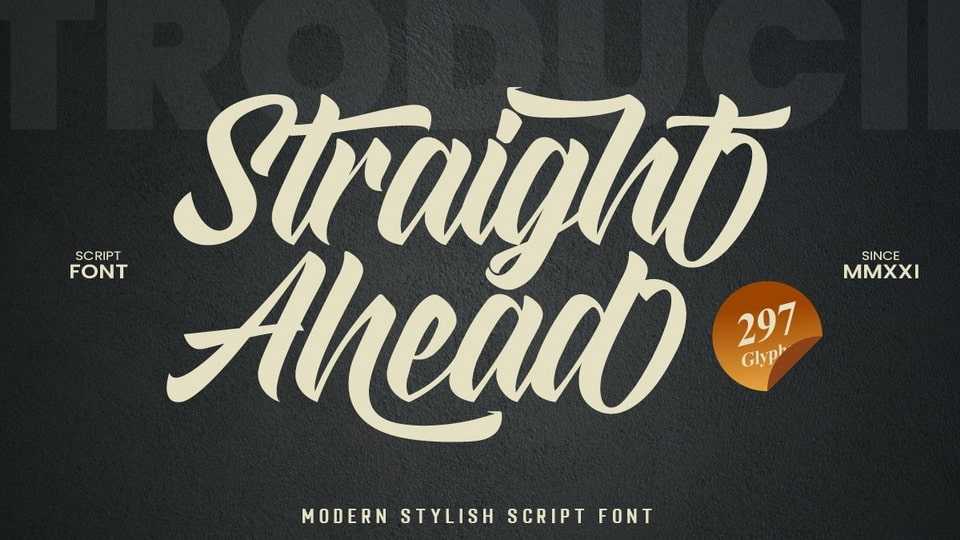
Download Straight Ahead font, a dazzling handwritten typeface. With a modern style, this versatile script font has a wide spectrum of applications such as for branding, logotype, and more.